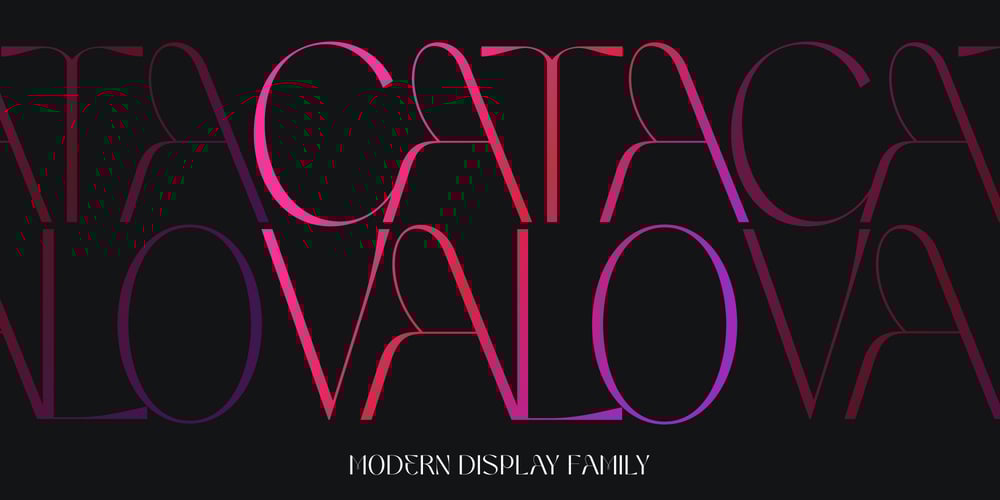
Catavalo Font Family was designed by Kadek Mahardika and published by Creativemedialab. Catavalo contains 6 styles and family package options. Catavalo is another stylish family from our collection, this unique family is perfect for headers, display or any fashion branding related concept. Contains 6 weights with tons of alternates and ligatures to play with.